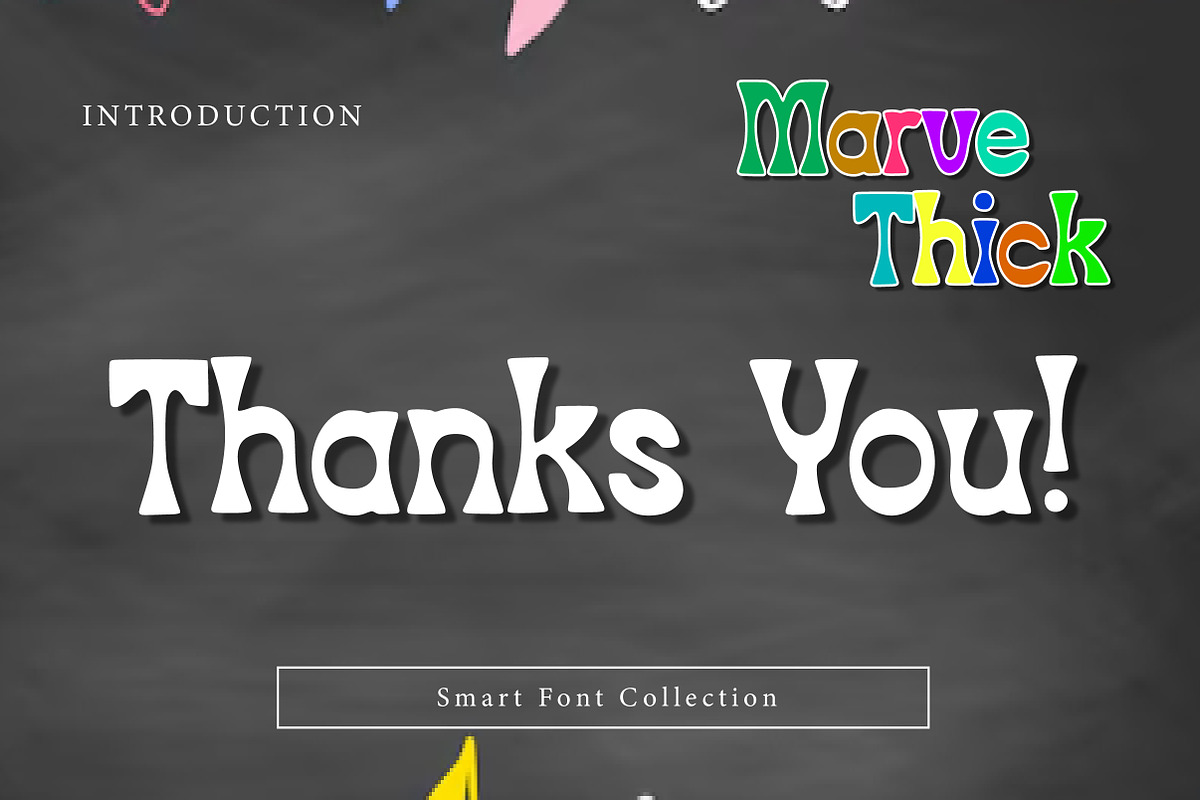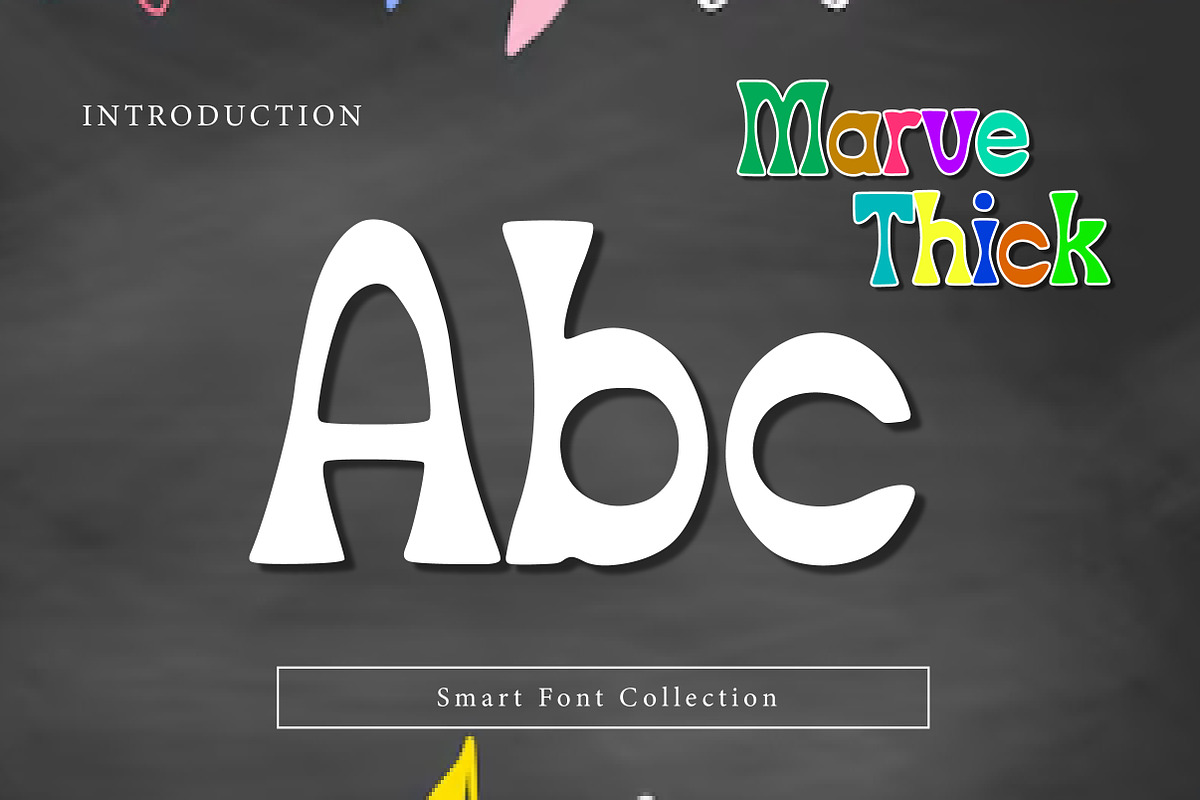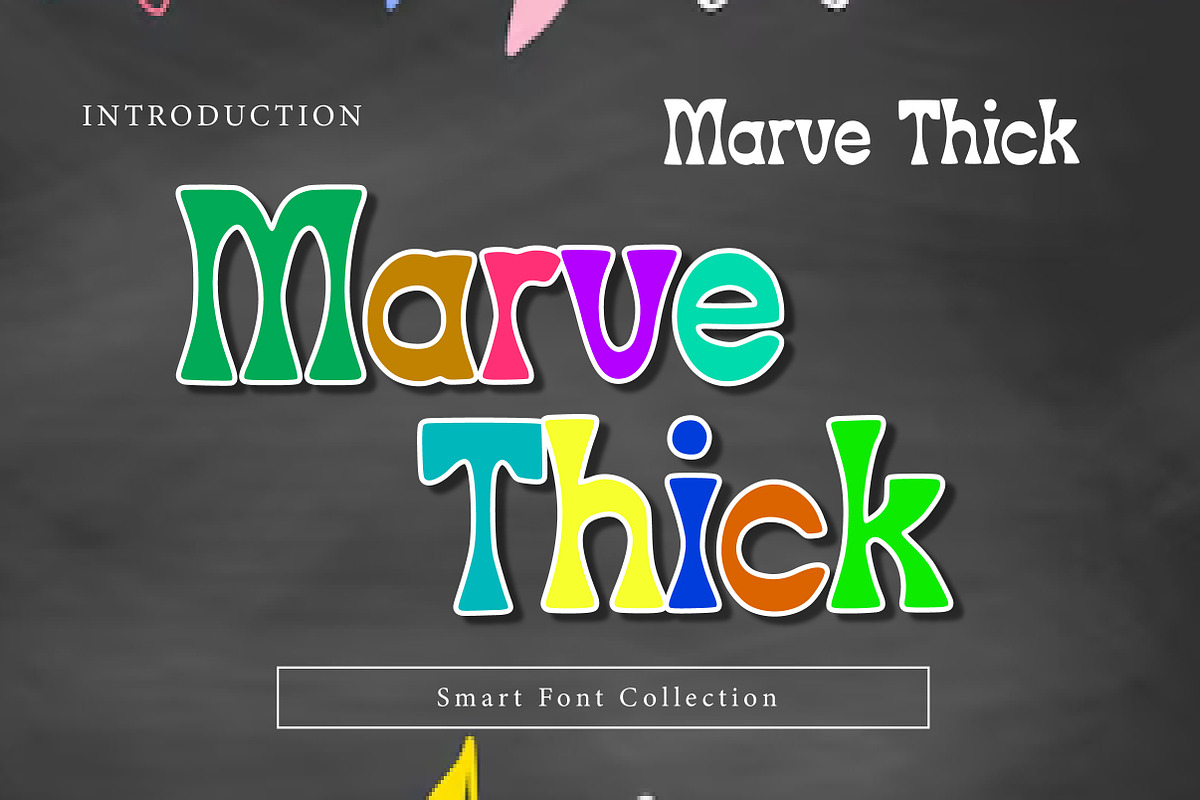
Marve Thick
Marve Thick is a bold, rounded display font with a soft retro personality and a smooth, playful rhythm. Its chunky shapes, friendly curves, and slightly whimsical style make it ideal for standout headlines, logos, posters, packaging, labels, kids designs, and social media graphics. Marve Thick balances charm and strength—giving your typography a warm, confident presence that feels both nostalgic and modern. Perfect for brands and creatives who want bold impact with a fun, approachable vibe.